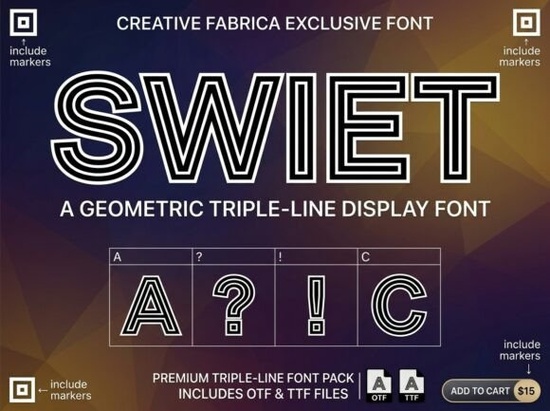
If you are working on a project that needs a fast, nostalgic vibe, the Swiet Font is a fantastic choice for your design toolkit. This display typeface brings a strong retro-and-racing feel to any layout, making it perfect for projects that need to look fast and bold. Whether you are designing a logo for a local auto shop or creating a vintage-style event poster, this inline geometric style gives your work instant character and direction.
What makes this inline typeface unique?
The main draw of this typeface is its triple-line inline texture. Instead of a standard solid fill, the letters feature a rhythmic, hollowed-out design that mimics the sleek speed of vintage race car liveries. The heavy structural weight keeps it readable even at large sizes. It captures the essence of 1970s track suits and classic motorsport branding without looking like a cheap imitation. If you are building a mood board and want to mix different vintage vibes in a single project, you might also want to explore the Aesthetic Rigelsia font for a softer, more flowing retro contrast.
Where should I use this retro racing style?
Because of its heavy weight and directional feel, this typeface works best for large, impactful text. Here are a few practical ways to use it in your daily design work:
- Automotive Logos: Perfect for custom garage names, local racing teams, or car meet flyers.
- Event Posters: Ideal for synthwave music events, retro drag racing nights, or roller derby promotions.
- Social Media Headers: Use it for bold YouTube banners or Instagram highlights that need to grab attention quickly.
How does it perform on print-on-demand products?
For crafters and print-on-demand sellers, typography is everything. The massive geometric shapes of this typeface translate beautifully to physical products. When printed on dark t-shirts, hoodies, or ceramic mugs, the inline details pop nicely, especially if you use a contrasting color for the inner lines. It is highly recommended for vintage-style apparel, racing stickers, and automotive lifestyle merchandise. Just remember to keep the text size large enough so the triple-line effect remains clear and does not blur during the printing process.
What pairs well with this heavy display style?
Quick checklist before you finalize your design:
- Check the scale: Ensure the text is large enough for the triple-line texture to be clearly visible.
- Test the colors: Try a bright outer color with a contrasting inner line color for maximum visual pop.
- Limit your usage: Use this typeface for headlines and short phrases only; keep your body text simple and clean.
Take a few minutes to type out your main headline and test it in both uppercase and mixed case to see which format fits your specific layout best.